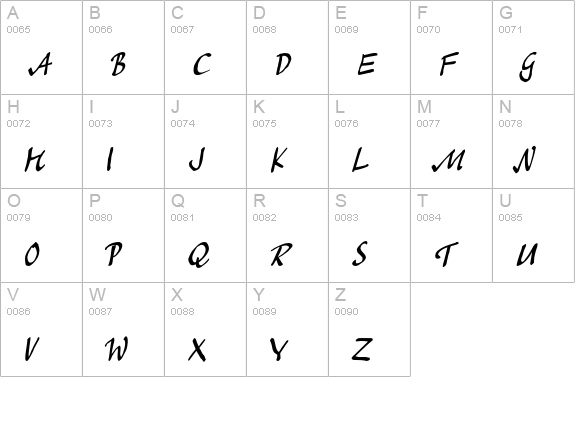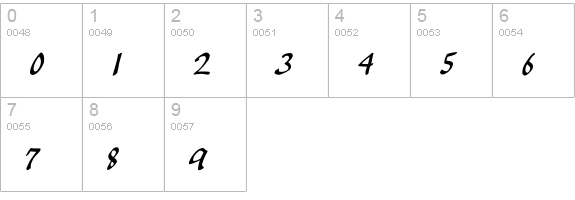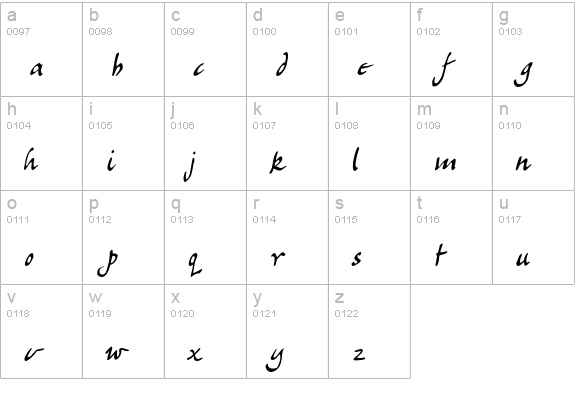
Chemist Font Details
Chemist font is a modern and sleek typeface that exudes sophistication and elegance. With its clean lines and unique design elements, Chemist font is perfect for a wide range of projects, from branding to editorial design. This versatile font is sure to make your text stand out and leave a lasting impression on your audience. Best of all, Chemist font is completely free to download at FontsMarket.com. This means you can easily access this stunning font and use it in your projects without any cost. Don't miss out on the opportunity to enhance your designs with the beauty and style of Chemist font – download it today and take your typography to the next level!